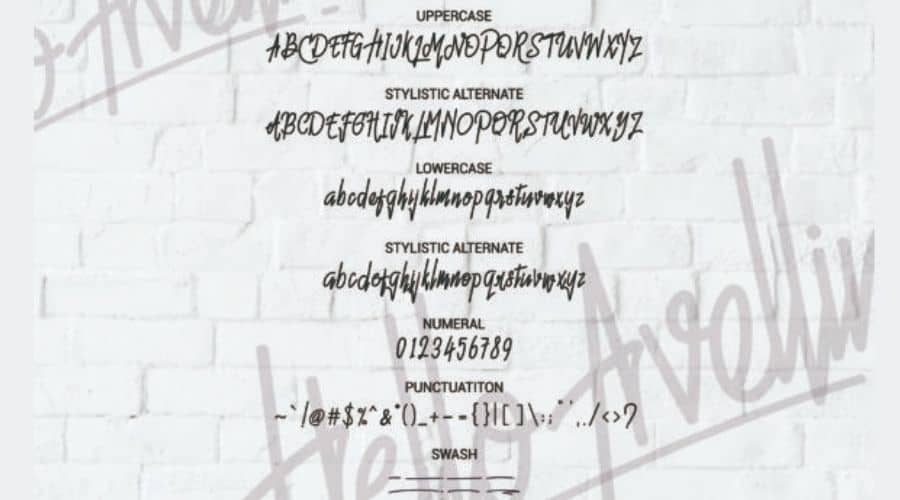
Hello Avelline Handwritten Font
Hello Avelline Font is a new elegant and classy monoline script font. It’s built-in a naturally modern script with a fresh modern script, offering a stunning script that’s sure to attract the eye. Hello Avelline handwritten Font is designed and shared by Holydie Studio.
The Font was uploaded on September 12, 2019. Punctuation, special characters for international language support, and unique and gorgeous numbers are all included. The Font supports a variety of languages, including French, German, Spanish, Portuguese, Italian, Dutch, Finnish, Swedish, and others. Lowercase and uppercase letters Characters are one of the Font’s characteristics.
Hello Avelline Handwritten Font is a modern monoline script typeface. Logos, branding, magazines, signatures, clothes, posters, advertising, business cards, and more may all benefit from it. This Font is also great for floral and graceful themes, as well as a subtle text overlay on any backdrop image.
Any colour can be used with this Script and Handwritten Font and will look amazing too. Any endeavour, personal or professional, looks fantastic with this Font without any doubt. Citations in any book will appear fantastic with this typeface easily. Any wallpaper design can benefit from the typography. Because of the gorgeous monoplanes in this typeface, it can also be used in any handwritten work.